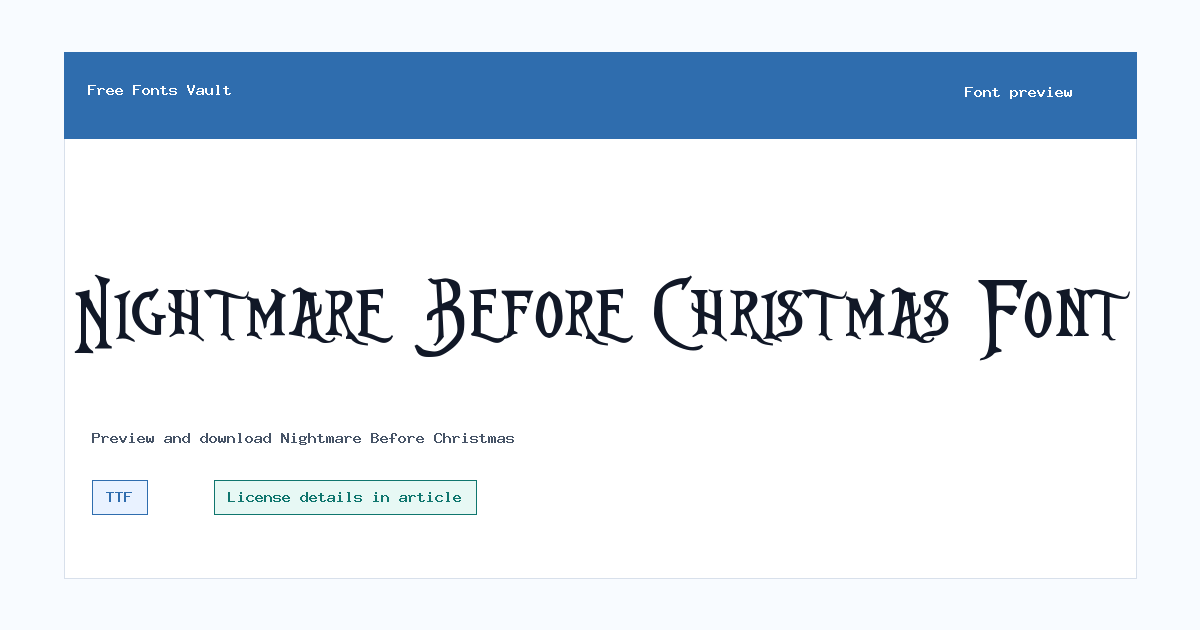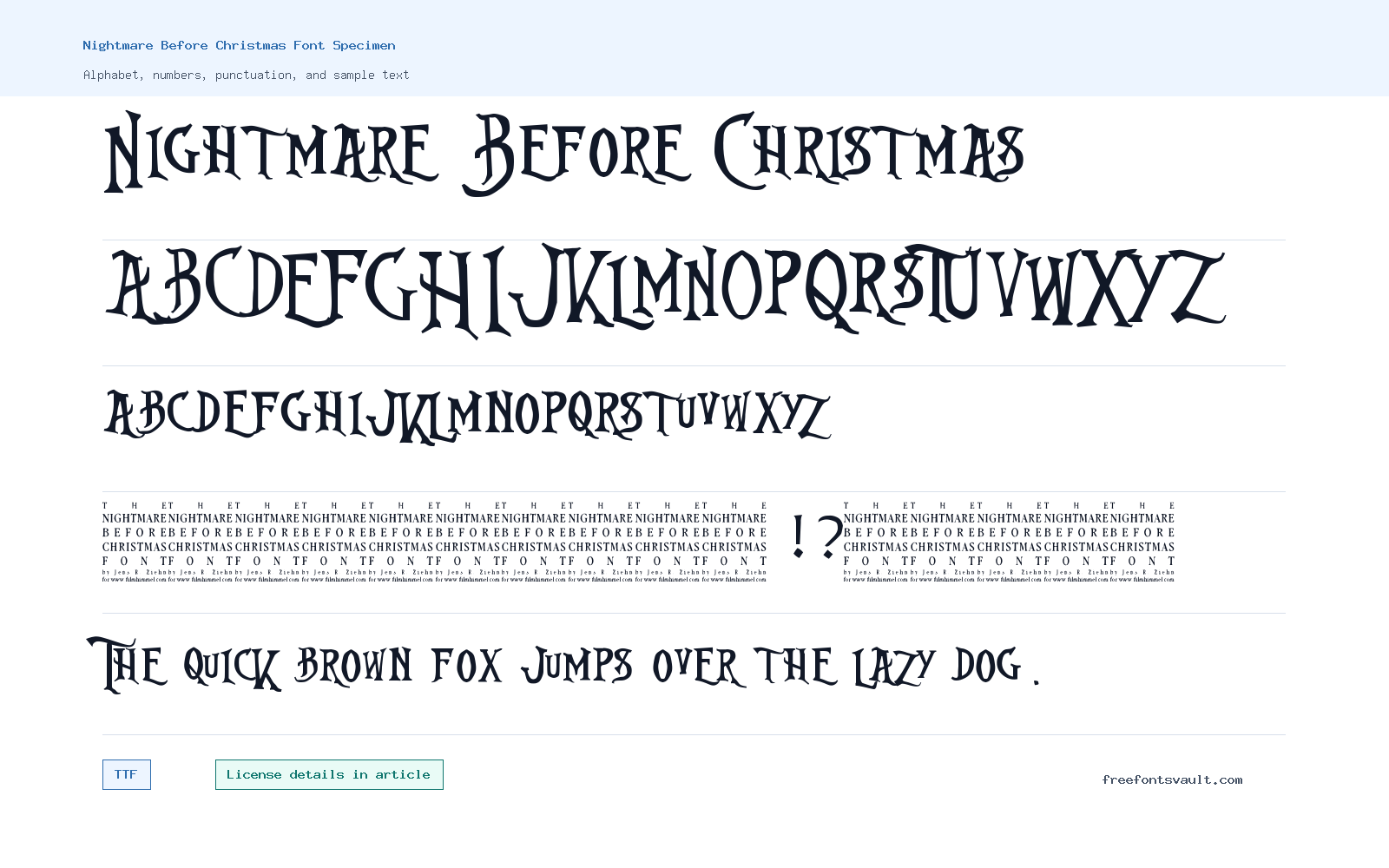
Nightmare Before Christmas
- Designer Jens R. Ziehn
Nightmare Before Christmas font.
Nightmare Before Christmas is a display font for projects that need a spooky, storybook-style title treatment. It is best tested in short words, headings, posters, invitations, and themed graphics where mood matters more than long-form reading.
About Nightmare Before Christmas Font
This font is more suitable for decorative text than body copy. It can work well for Halloween-style designs, fantasy headings, party flyers, quote graphics, thumbnails, labels, and personal craft layouts. Keep the wording brief, give the letters enough room, and avoid using it for small paragraphs or dense information where clarity is the main goal.
Nightmare Before Christmas has a spooky display feel, so it works best when the text is short and dramatic. Try it with names, poster titles, Halloween labels, invitation headings, and themed social graphics. If the phrase is long, split it into shorter lines so the shape of the words stays readable.
- Display-focused family suited to short, themed text
- Decorative display character for spooky or storybook-style headings
- Best used at larger sizes with simple supporting typography
- Spooky titles, Halloween graphics, and themed posters
- Invitations, quote images, labels, and decorative headings
- Halloween graphics, party invitations, poster-style headings, and themed name art
The font is credited to Jens R. Ziehn.
For best results, test the exact words you want to use in the preview box. Display fonts can look strong in a title but lose readability when used too small, too tightly spaced, or across long sentences. Use a simple companion font for dates, addresses, and body copy. The display font should carry the mood, while the supporting font keeps the practical information easy to read.
What kind of projects is this font best for?
It is best for short decorative text such as titles, posters, invitations, themed graphics, thumbnails, and craft designs. It is not a good first choice for long paragraphs.
Who designed the Nightmare Before Christmas font?
The font is credited to Jens R. Ziehn.